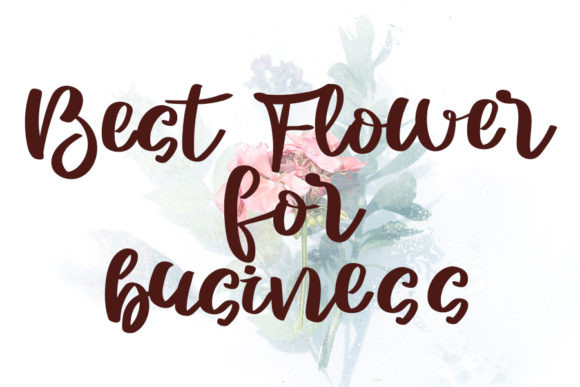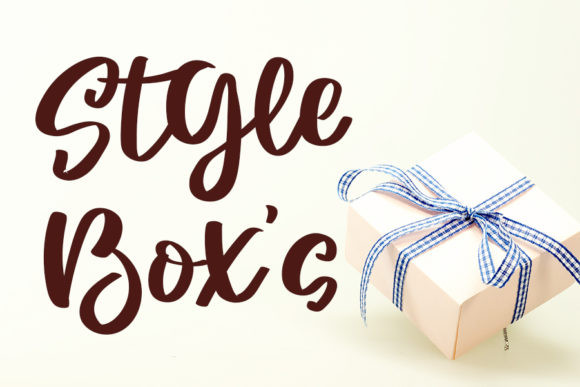
Shashimie Font
Shashimie is a flowing handwritten font, described by an elegant touch, perfect for your favorite projects. Fall in love with its incredibly distinct and timeless style and use it to create spectacular designs!